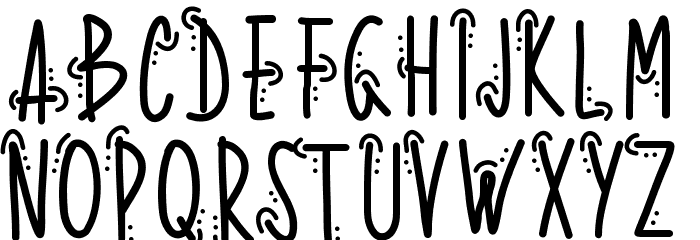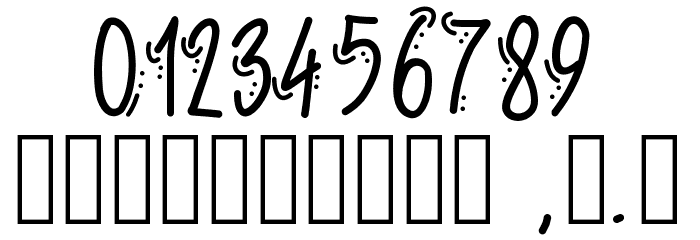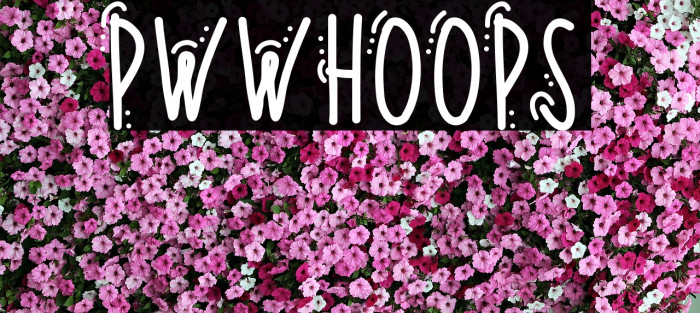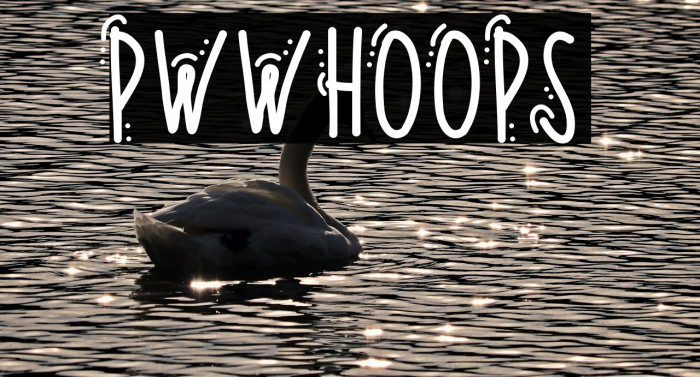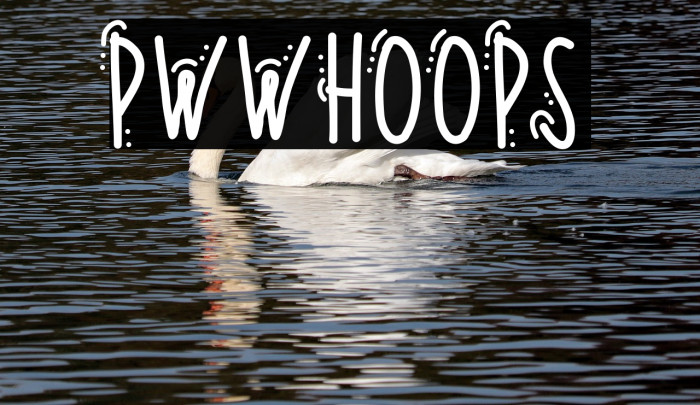
PWWhoops Font
This playful and whimsical font features a unique combination of bold strokes and decorative elements. Each character is adorned with small dots and curved accents, giving it a lively and dynamic appearance. The uppercase letters are tall and slightly narrow, while the lowercase letters maintain a consistent style with a touch of quirkiness. Numbers and special characters follow the same decorative theme, making the font cohesive and visually interesting. Its distinct style makes it suitable for creative projects that require a fun and engaging typeface.
A playful, decorative font with bold strokes and whimsical accents.
- Proposed Projects: Ideal for children's books, playful branding, party invitations, and creative posters.
- Overall Style: Whimsical, Playful, Decorative